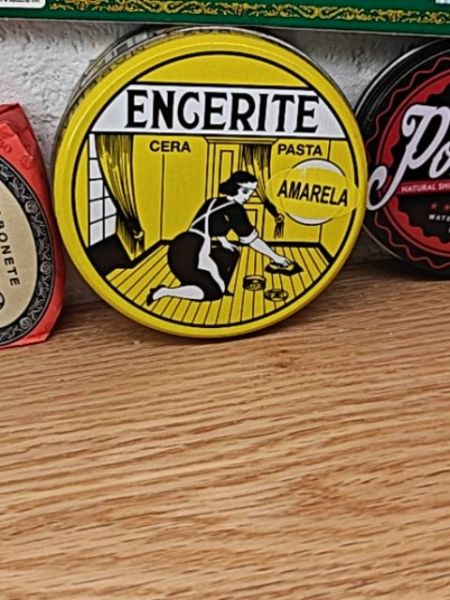
Engerite Cera Pasta Amarela
A floor wax used for polishing and protecting wooden floors.
Brazil
The typography on the packaging features bold, uppercase lettering that commands attention. The main font is a serif typeface, giving it a classic and sturdy appearance, which aligns with the product's long-standing reputation.
The packaging is a round tin featuring a vintage illustration of a person polishing a floor. The yellow and black color scheme is eye-catching and conveys a sense of tradition and quality.
- Engerite is well-known in Brazil for its effective floor polishing properties.
- It has been a trusted household product for many years.
- The wax leaves a protective layer that enhances the shine and durability of wooden floors.